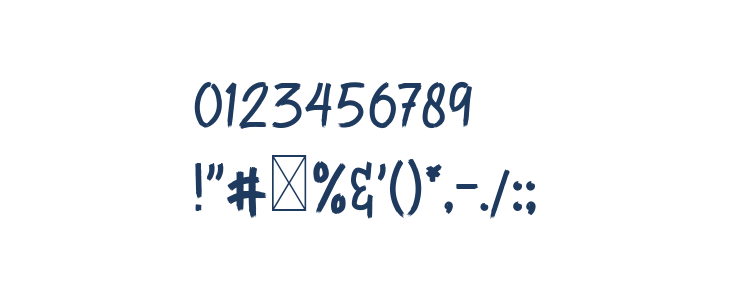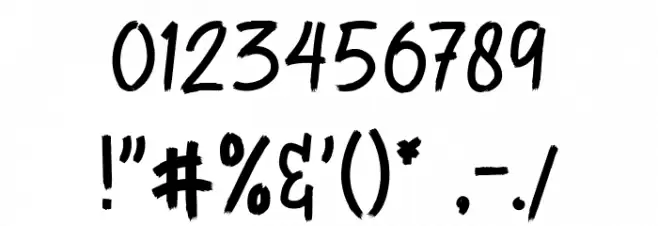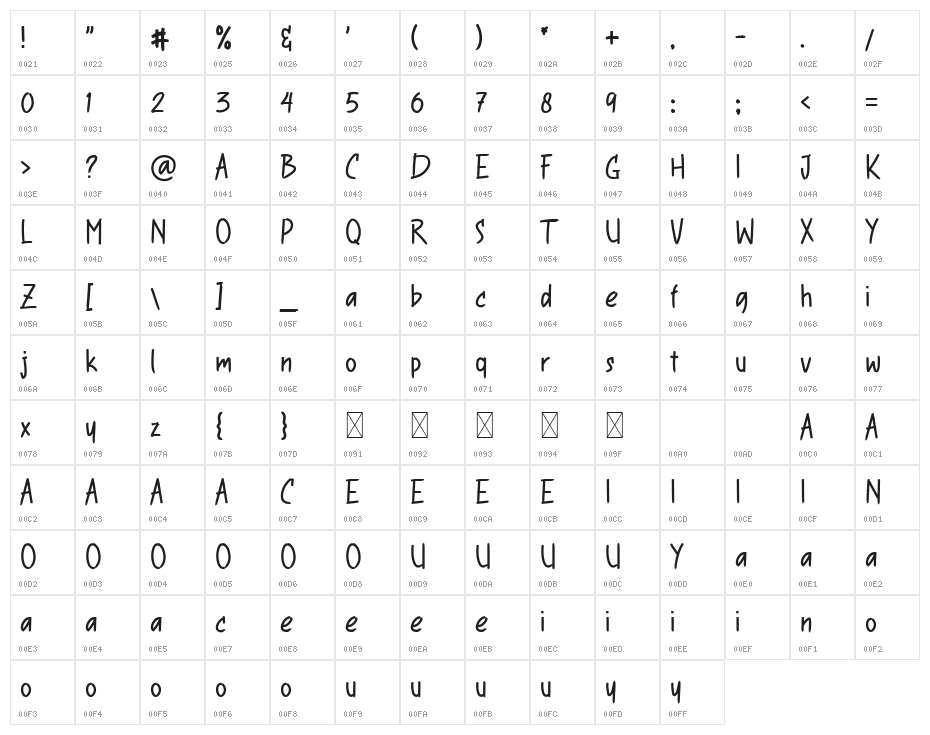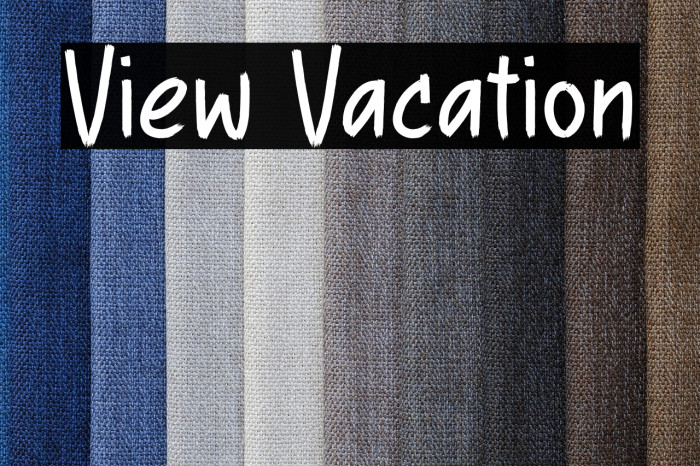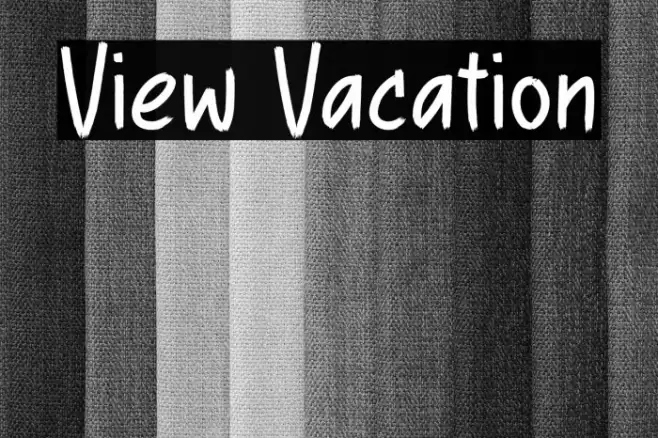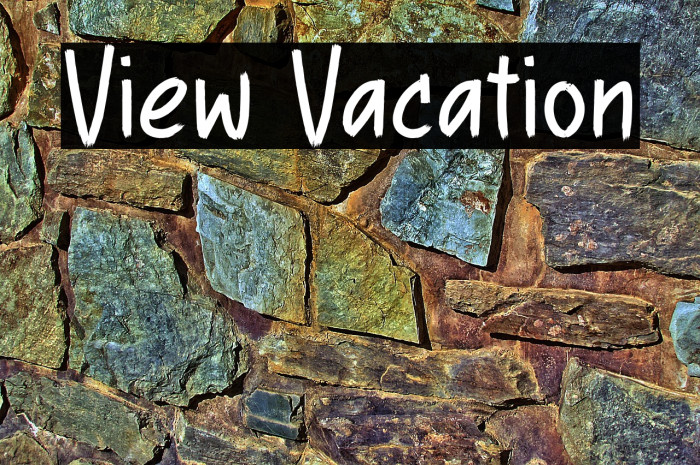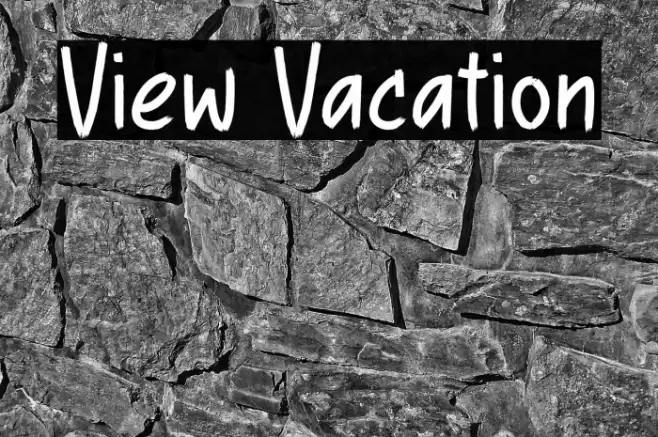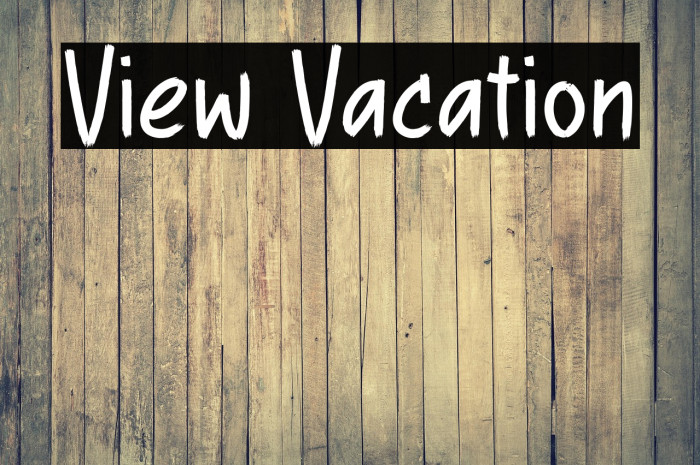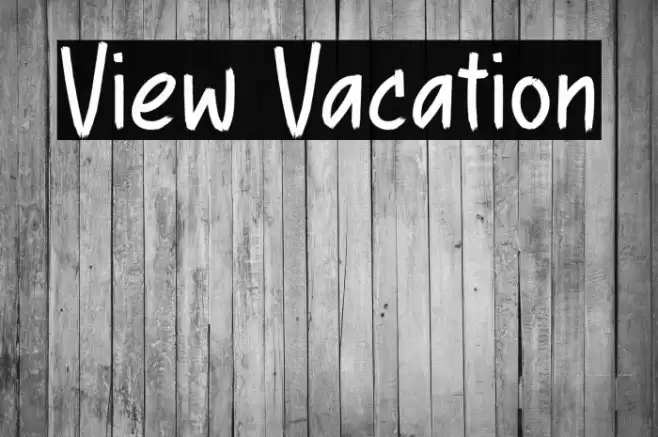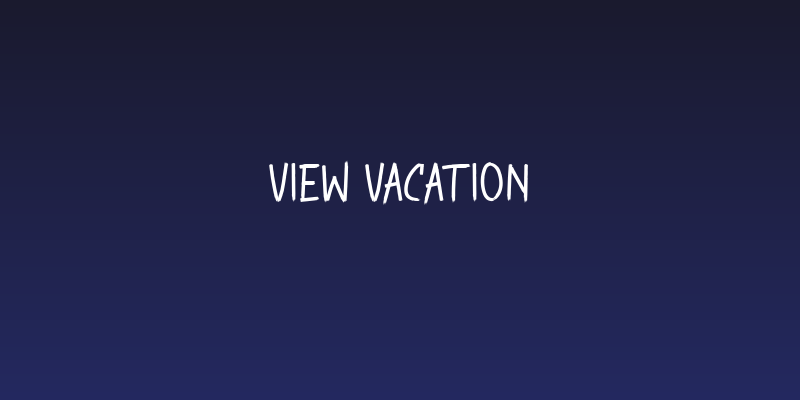
View Vacation Font
View Vacation Description
This font features a playful and casual handwritten style, characterized by its uneven strokes and slightly irregular letterforms. The uppercase letters are bold and dynamic, with a slight slant that adds to the informal feel. The lowercase letters maintain the same playful quality, with rounded edges and a consistent flow. Numbers and special characters are designed to match the overall aesthetic, making them suitable for creative and informal projects. The font's unique style makes it stand out, offering a friendly and approachable look.